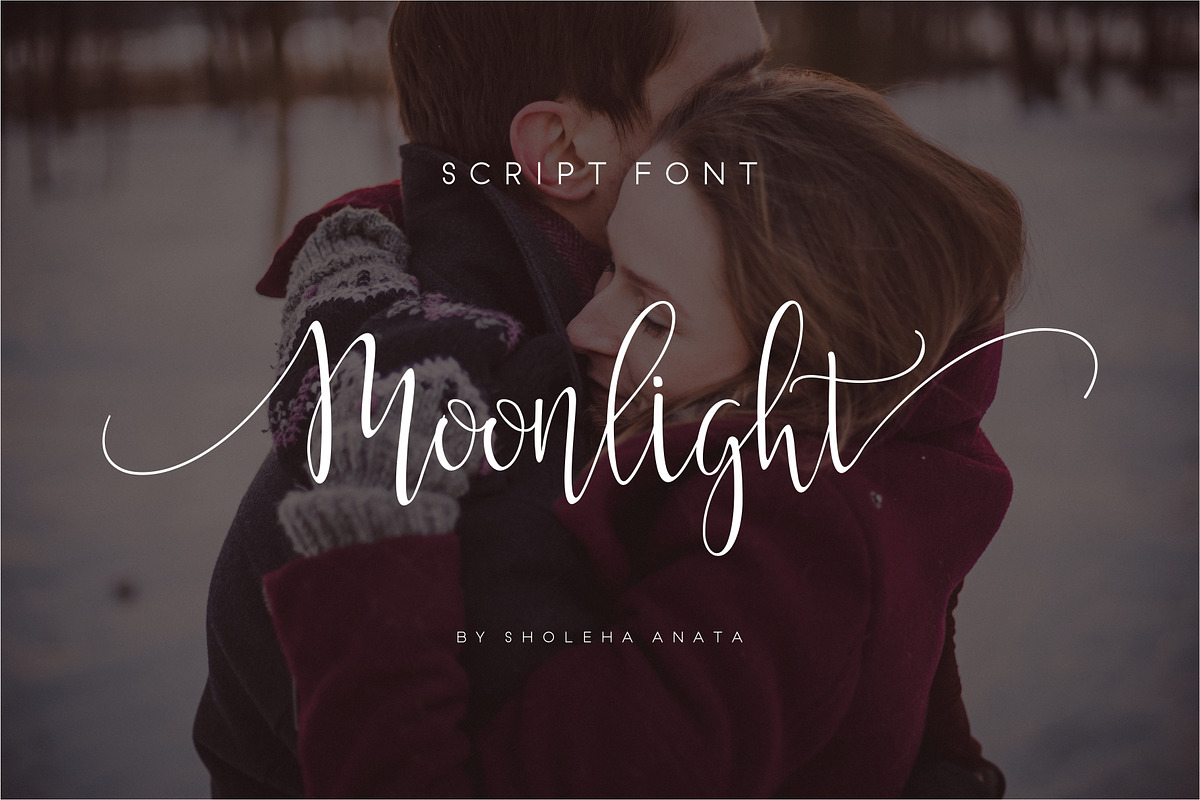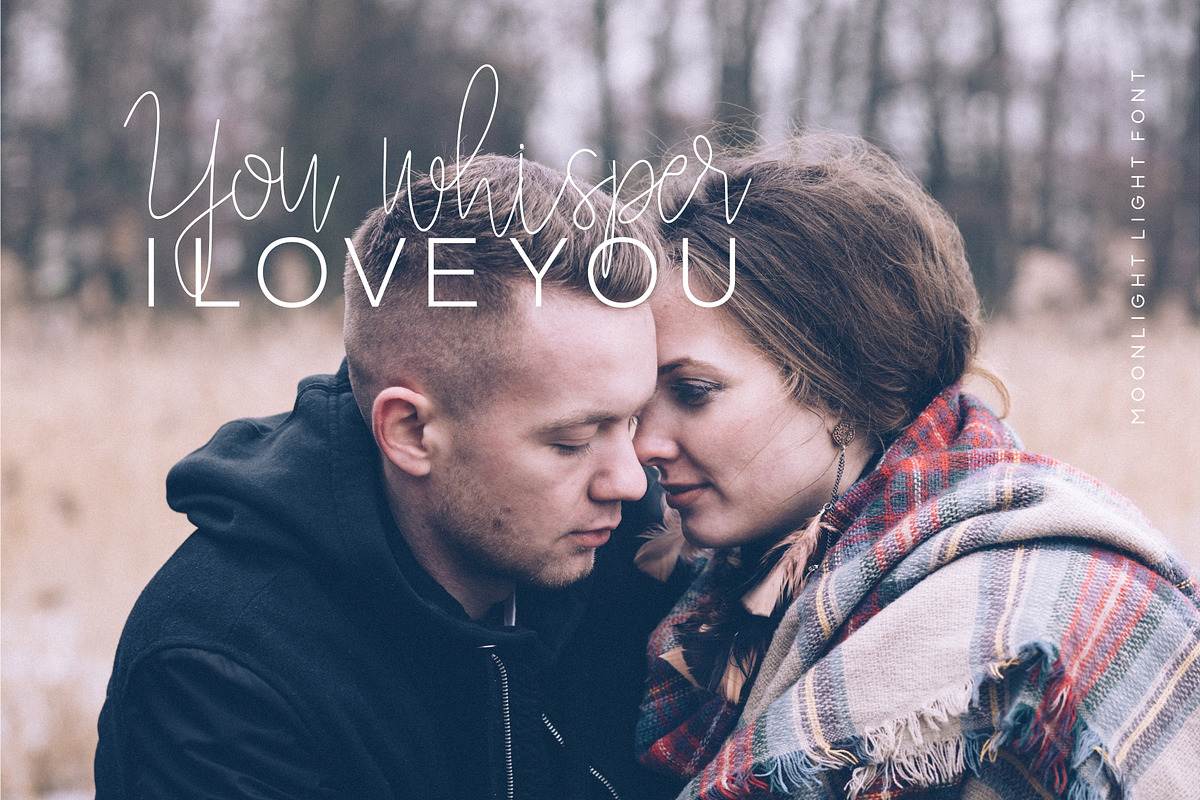
Moonlight Script
Introducing my first "Moonlight" script font - a modern with sweet emotion handwriting font script.
Moonlight font was created to look a modern handwritten script by including 4 types which are regular, light, bold and alt.
The script has an alternate upper and lowercase character full set, as well as some of Standard Ligatures - allowing you to make your design truly beautiful.